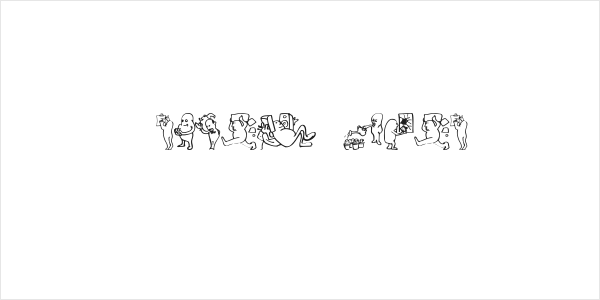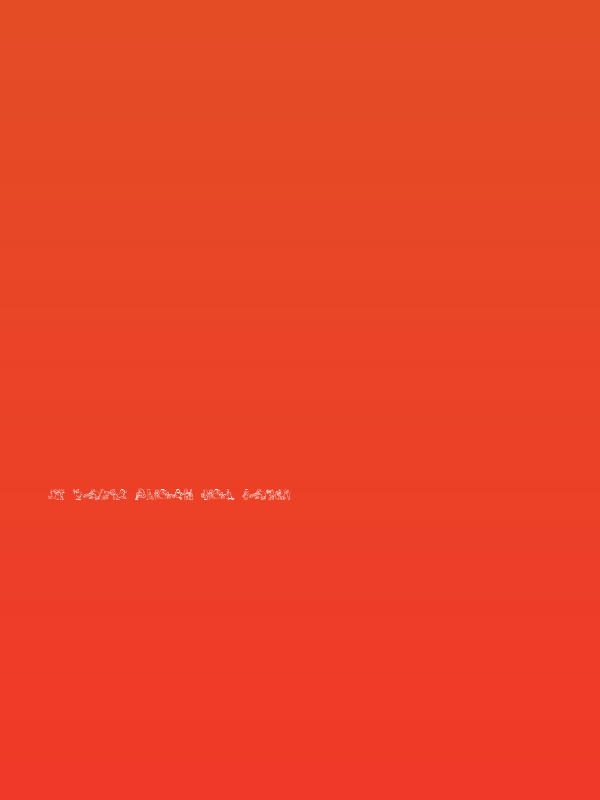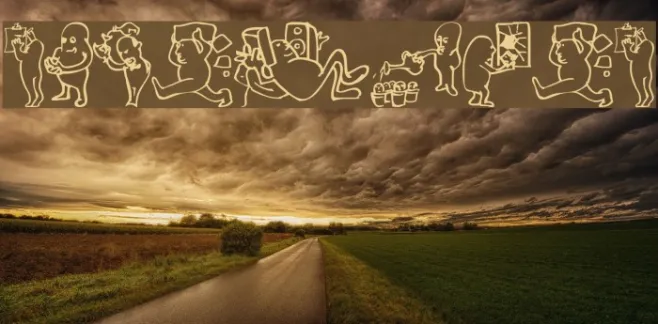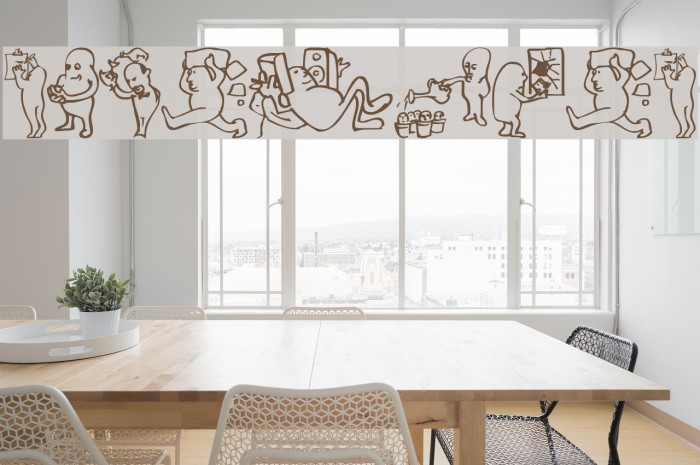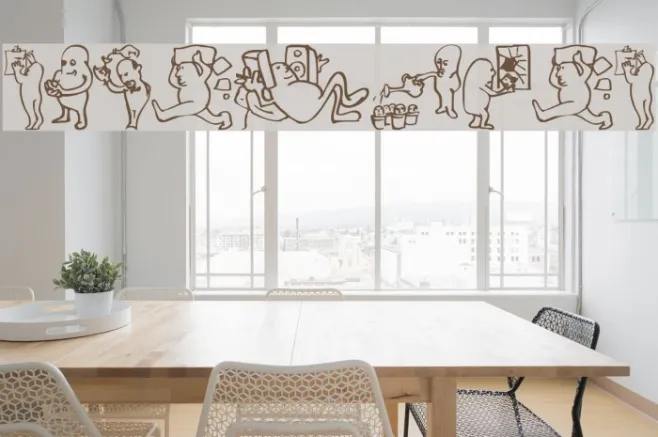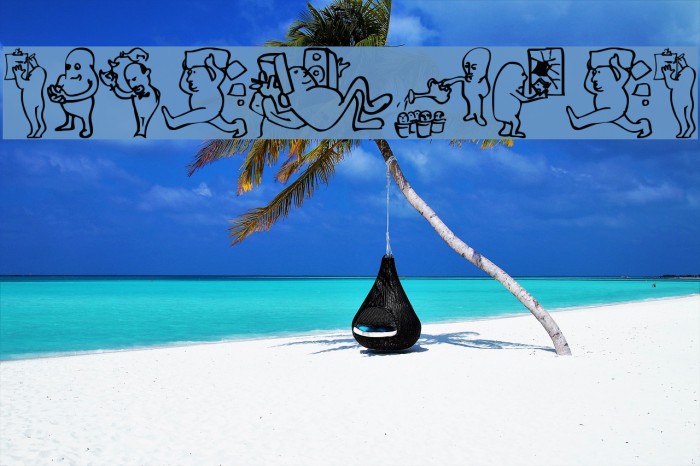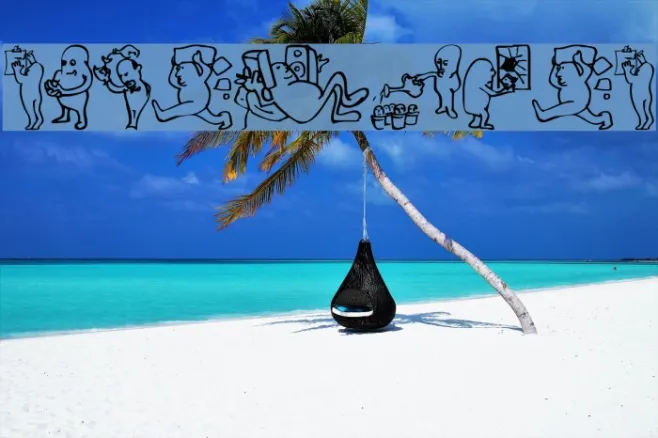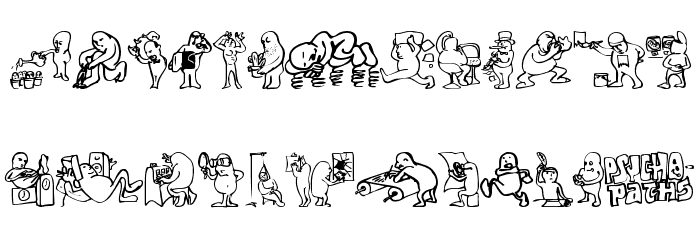
PsychoPaths Font
PsychoPaths Description
This is a whimsical and playful decorative font where each character is represented by a unique cartoonish figure. The figures are creatively designed, each engaged in different activities, adding a humorous and artistic touch. The style is highly illustrative, making it more of an art piece than a traditional font. The characters are bold and detailed, with a hand-drawn appearance that gives them a lively and dynamic feel. This font is not suitable for body text but can be used for creative projects where a fun and quirky style is desired.
| Use Case | Logos, Posters, Art projects |
| Proposed Projects | Ideal for comic strips, children's books, playful posters, and creative branding projects. |